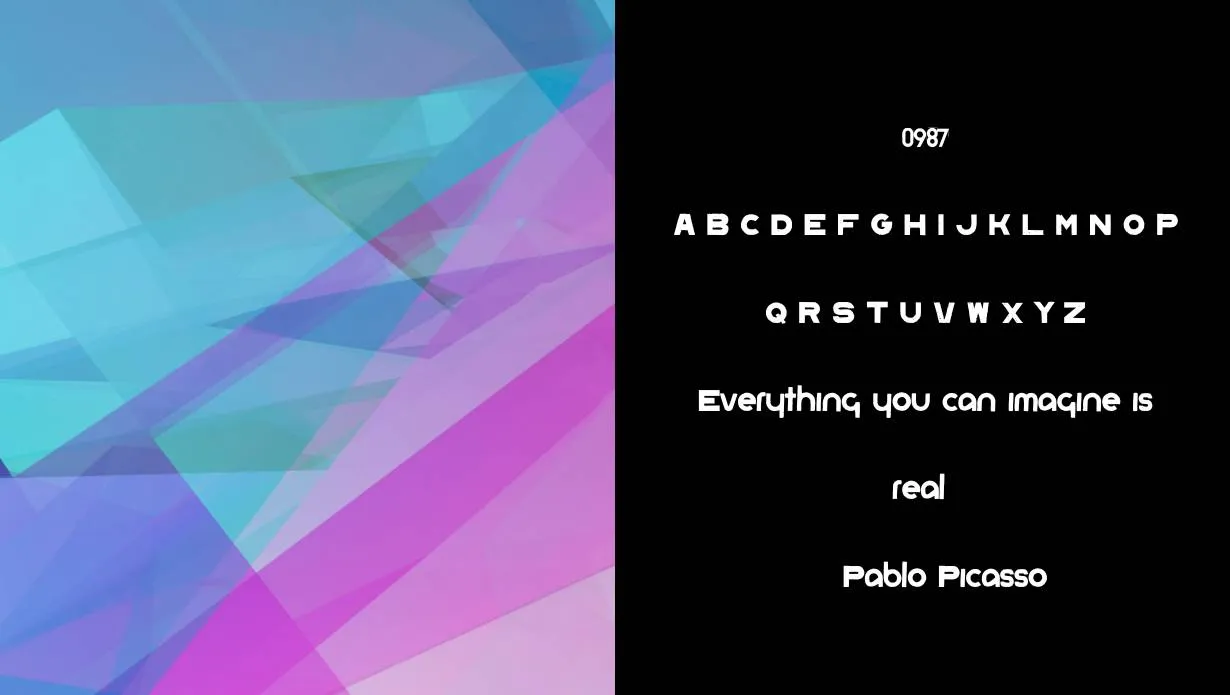
Radiohead Font is inspired by the unique and artistic style associated with the iconic band Radiohead. This font captures the band’s avant-garde and experimental spirit with its unconventional letterforms.
Whether used for album covers, promotional materials, or creative projects, Radiohead Font adds a touch of artistic and alternative flair to the typography, making it a compelling choice for designs that seek to push creative boundaries.